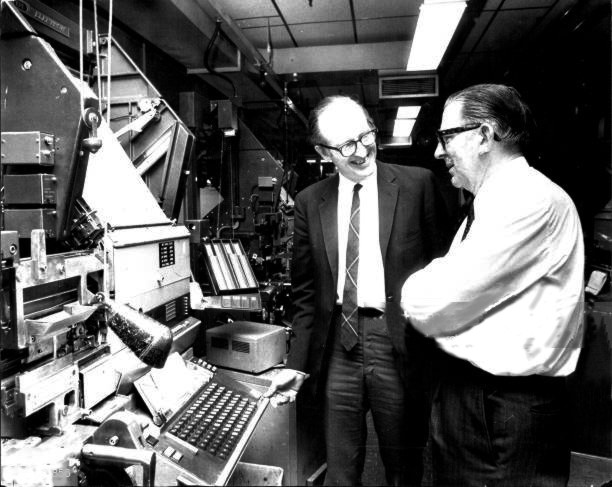
Godfather of Helvetica
Back in the 1960's when I was working for Canadian Linotype we had a visit from Mike Parker the head of Mergenthaler's typography. He was promoting the introduction of Helvetica. Years later he visited the Sydney Morning Herald. Here he is talking to Frank Harvey, on the right, the composing room manager. They are standing in front of one of the Herald's Elektron Linotypes.